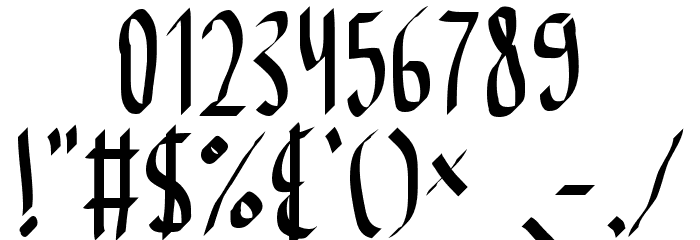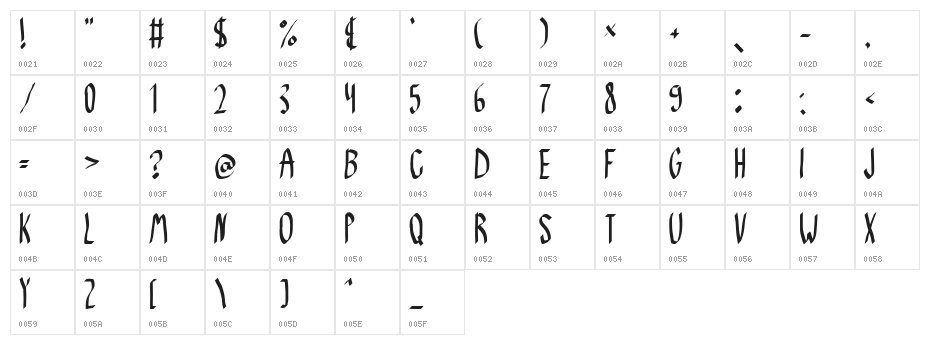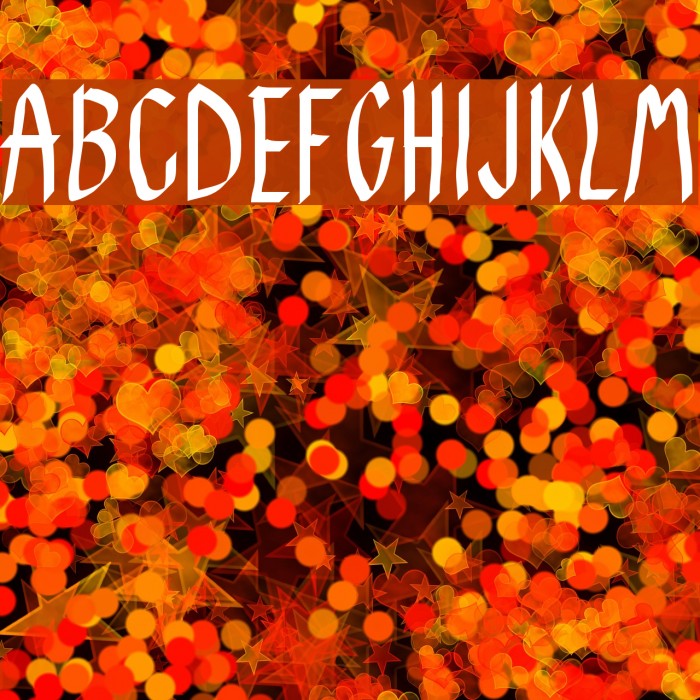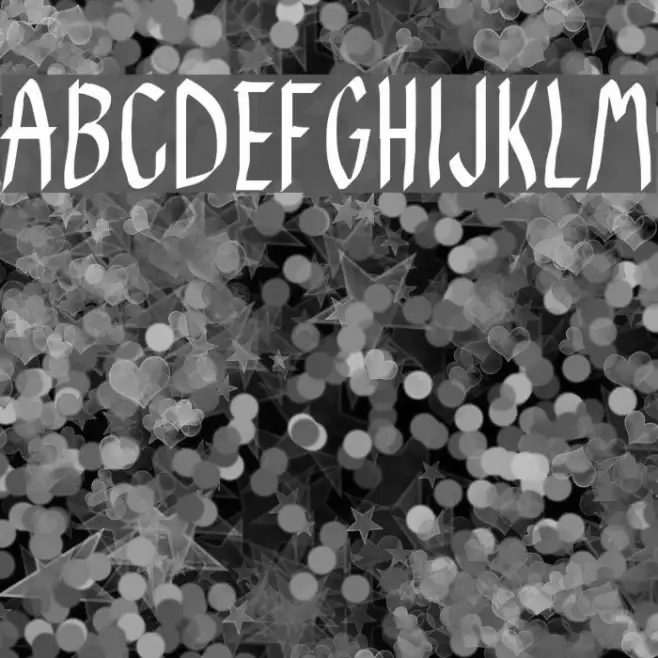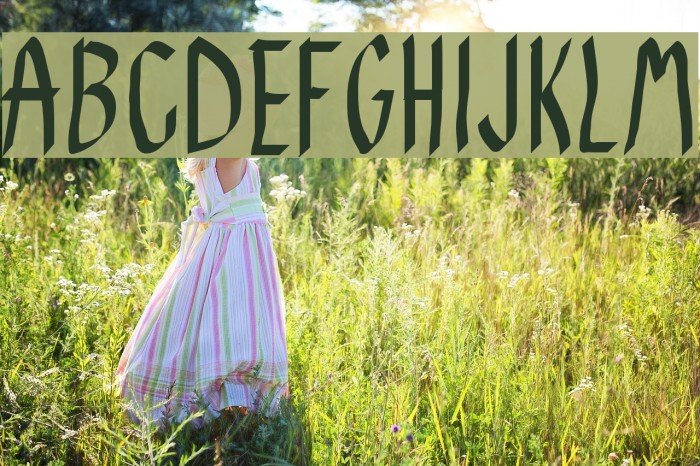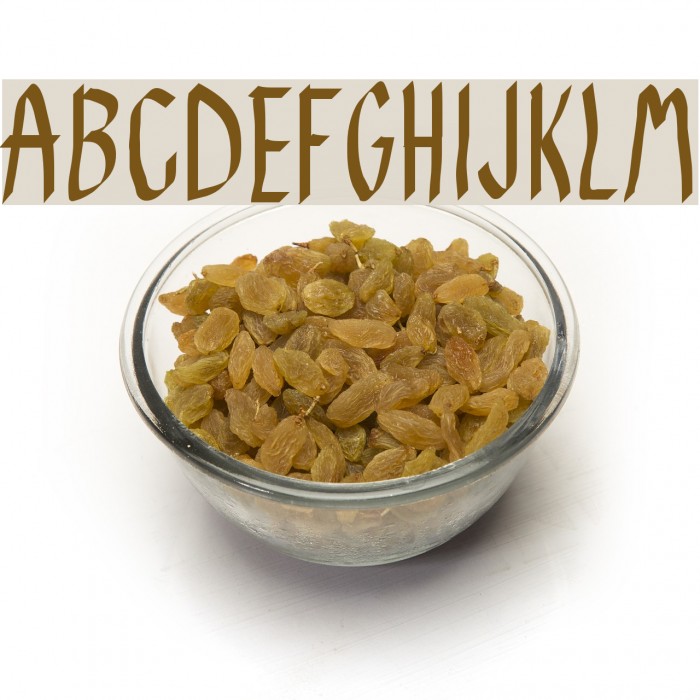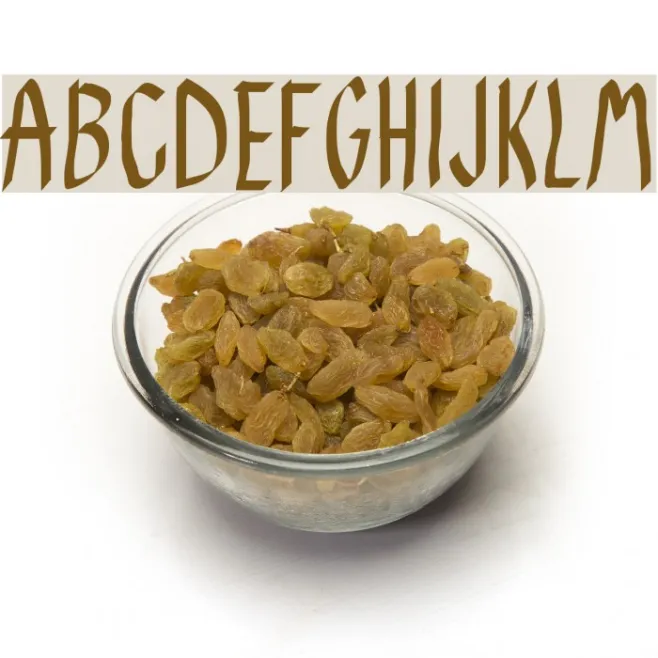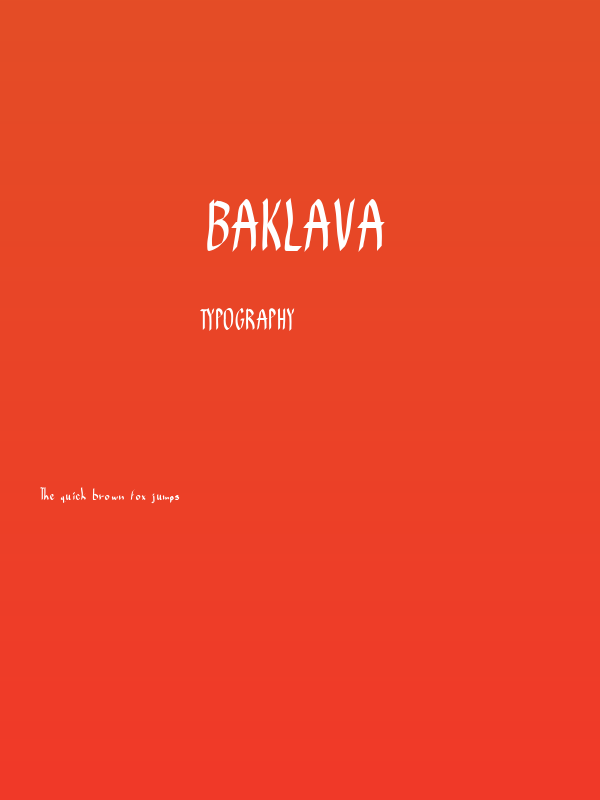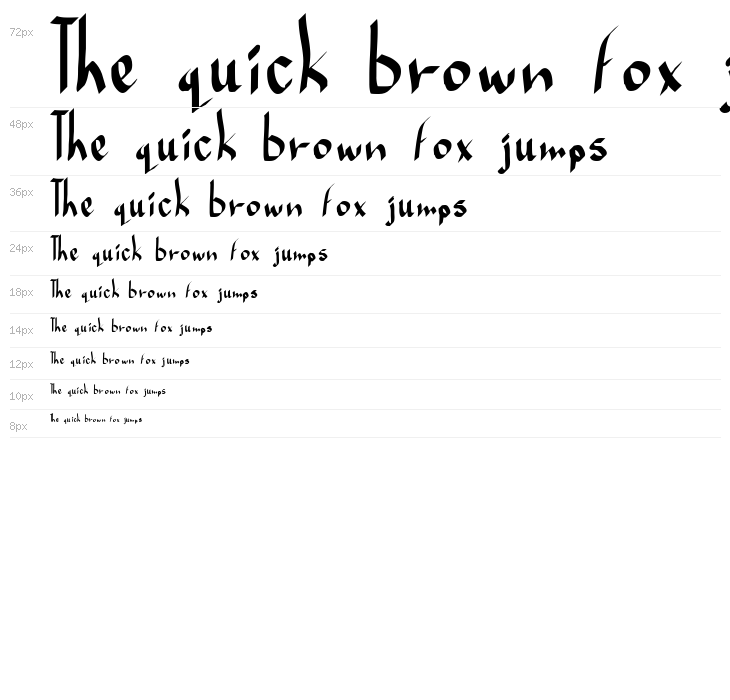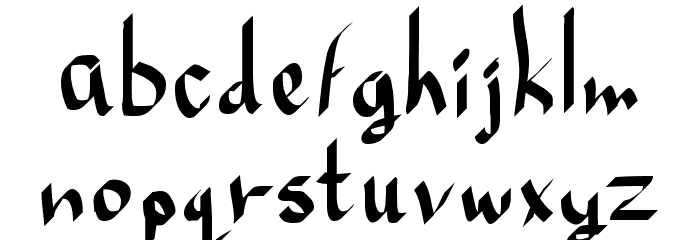
Baklava Font
Baklava Description
This font features a unique and artistic style with sharp, angular edges and a hand-drawn appearance. The uppercase letters are tall and narrow, giving a sense of height and elegance. The lowercase letters maintain the same angular style, with some characters having a slightly cursive touch, adding to the font's dynamic feel. The numbers are consistent with the letterforms, maintaining the same sharp angles and artistic flair. Special characters are creatively designed, fitting seamlessly with the overall aesthetic. This font's distinct style makes it stand out, perfect for creative and bold design projects.